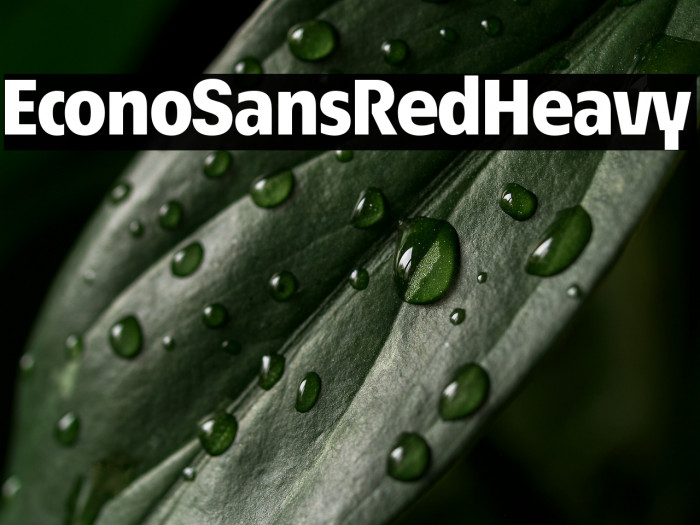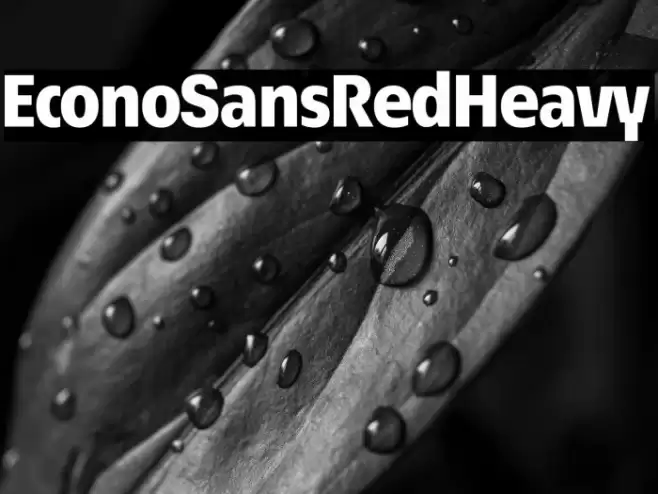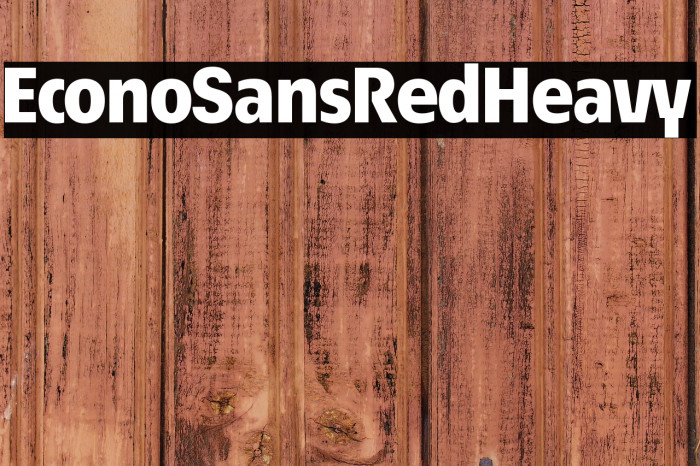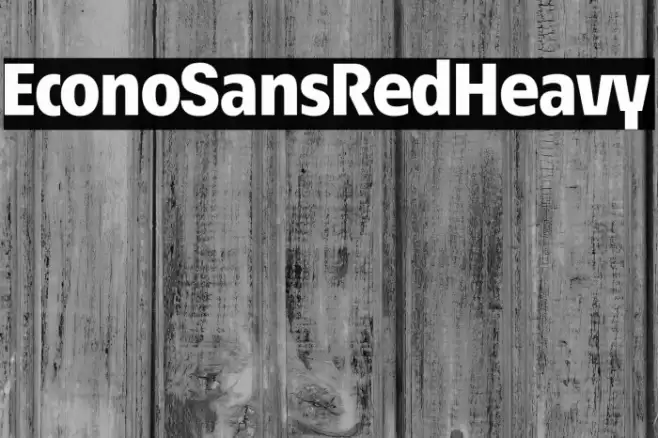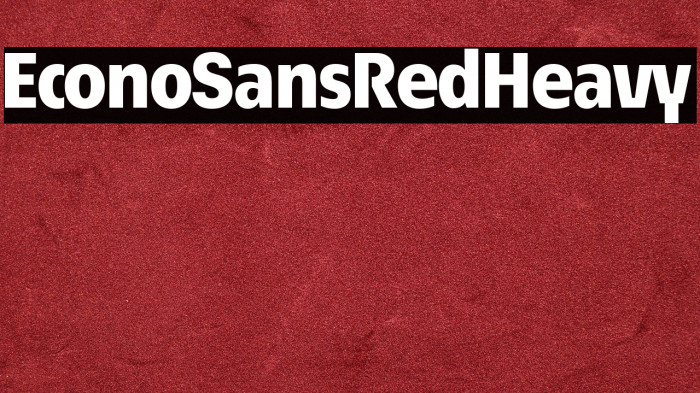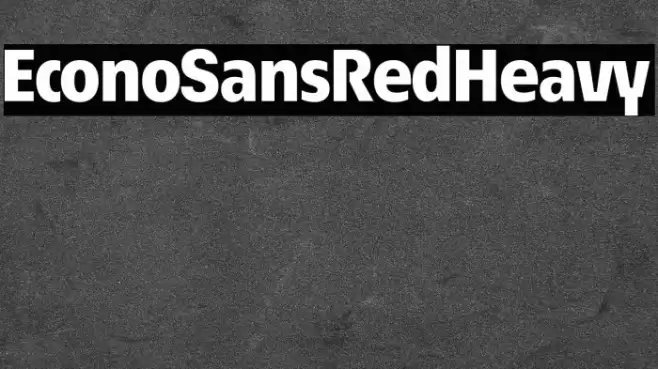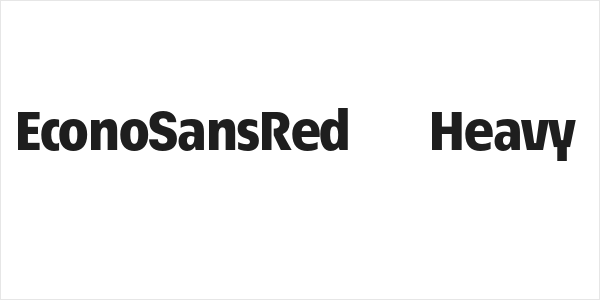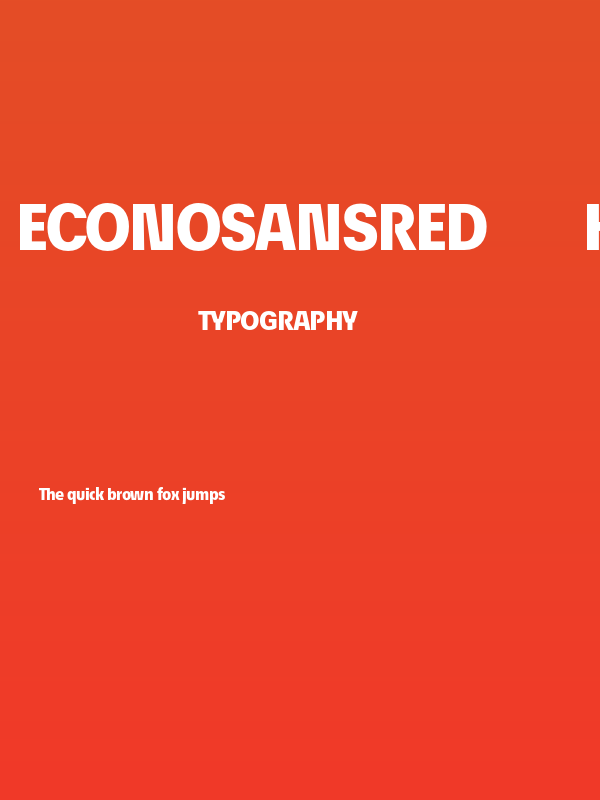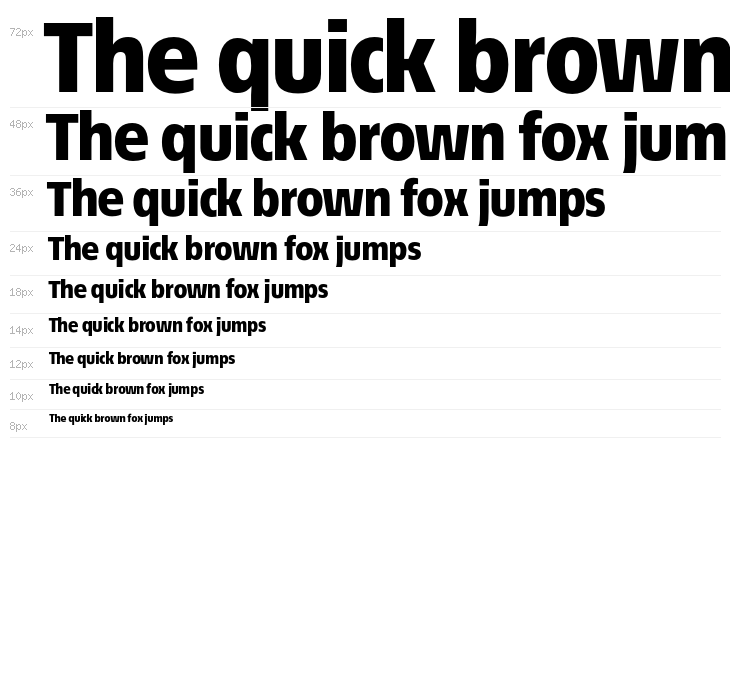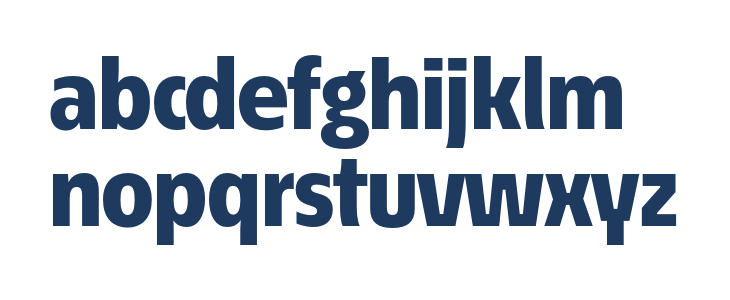
EconoSansRed-85Heavy Font
EconoSansRed-85Heavy Description
This typeface exhibits a bold and assertive presence with its heavy weight and strong geometric shapes. The characters are crafted with a modern sans-serif style, featuring clean lines and a uniform stroke width that conveys a sense of stability and confidence. The uppercase letters are particularly striking, with a consistent height and width that enhances readability. The lowercase letters maintain a similar structure, ensuring a cohesive look across different text sizes. The font's design is straightforward yet impactful, making it suitable for a variety of applications where clarity and emphasis are paramount.
| Use Case | Headlines, Logos, Signage |
| Proposed Projects | Ideal for branding, advertising, headlines, and signage where a strong visual impact is needed. |